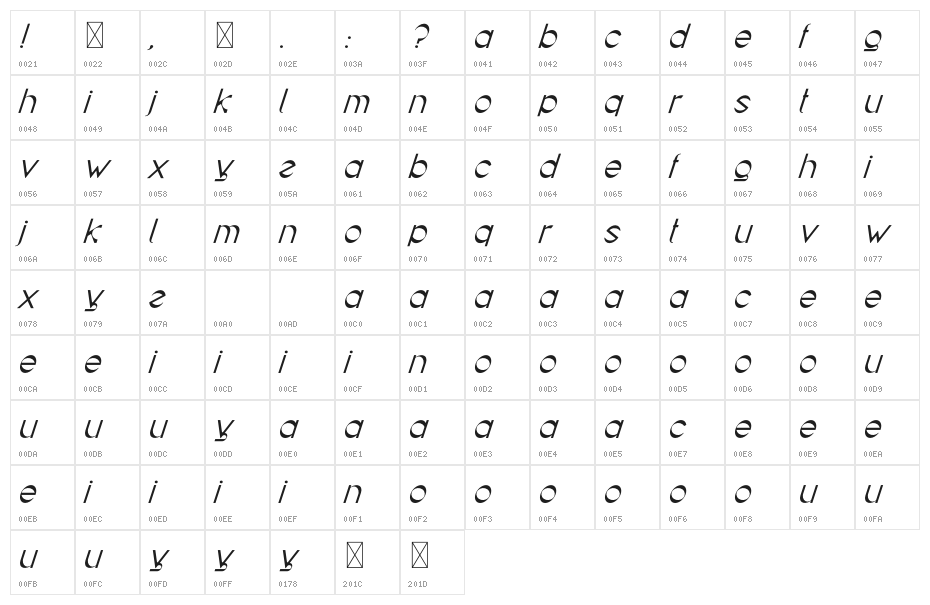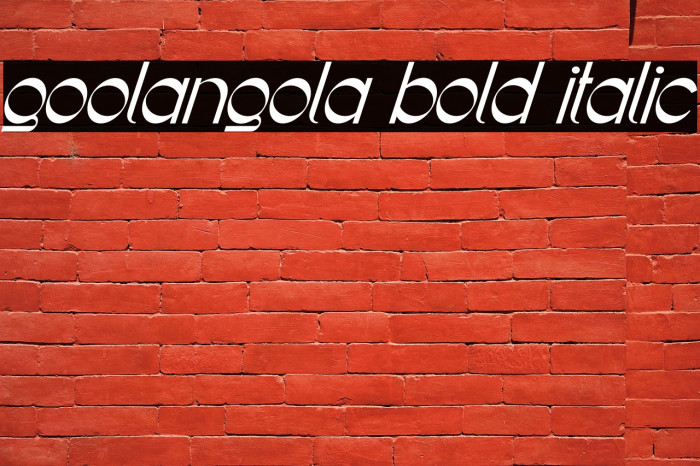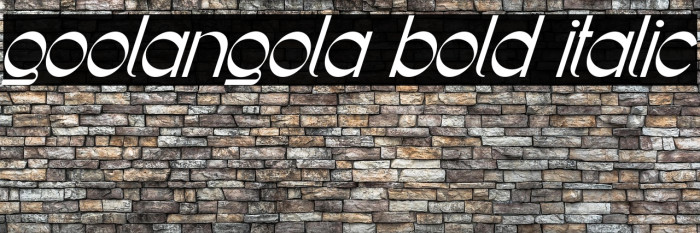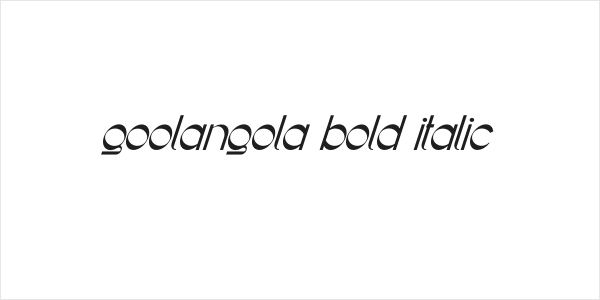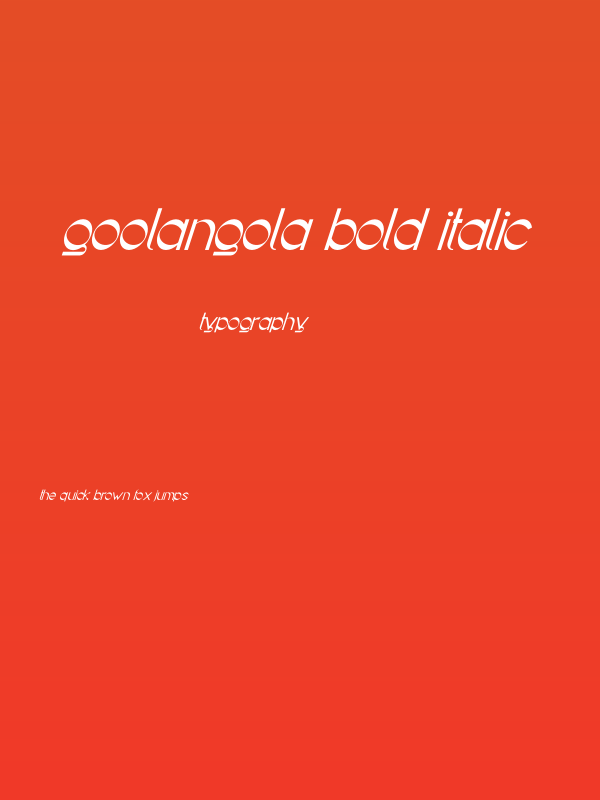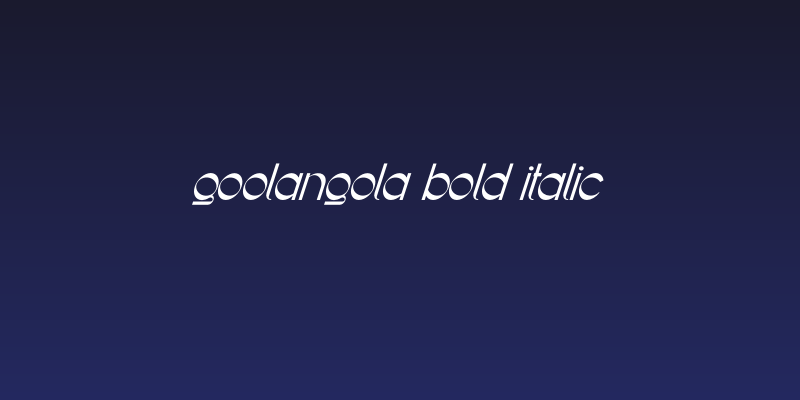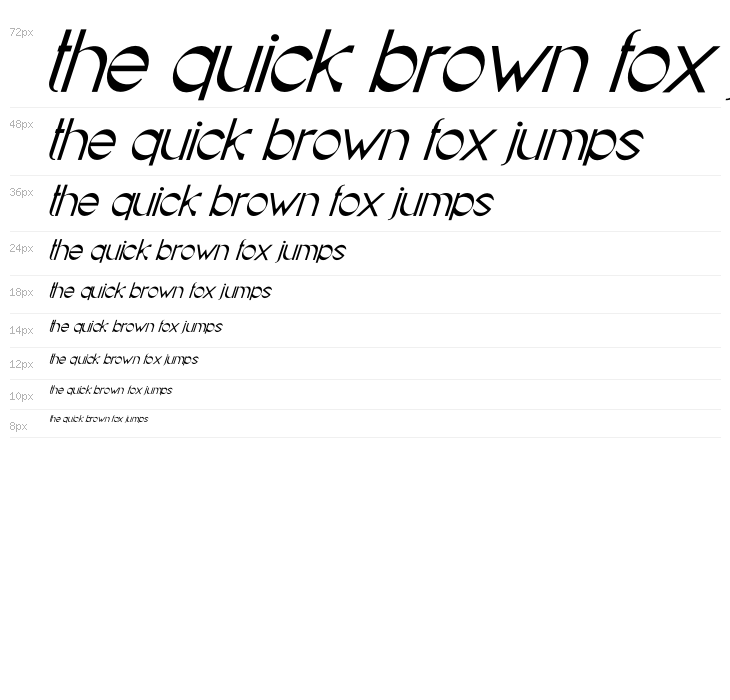
Goolangola Bold Italic Font
Goolangola Bold Italic Description
This font features a modern and sleek design with a distinct italic slant, giving it a dynamic and forward-moving appearance. The characters are bold, with a consistent stroke weight that enhances readability while maintaining a stylish flair. The lowercase letters exhibit a unique curvature, particularly noticeable in letters like 'g' and 'y', which adds a touch of elegance. The uppercase letters maintain a uniform height, contributing to a cohesive look across different text sizes. This font's clean lines and geometric shapes make it suitable for contemporary design projects.